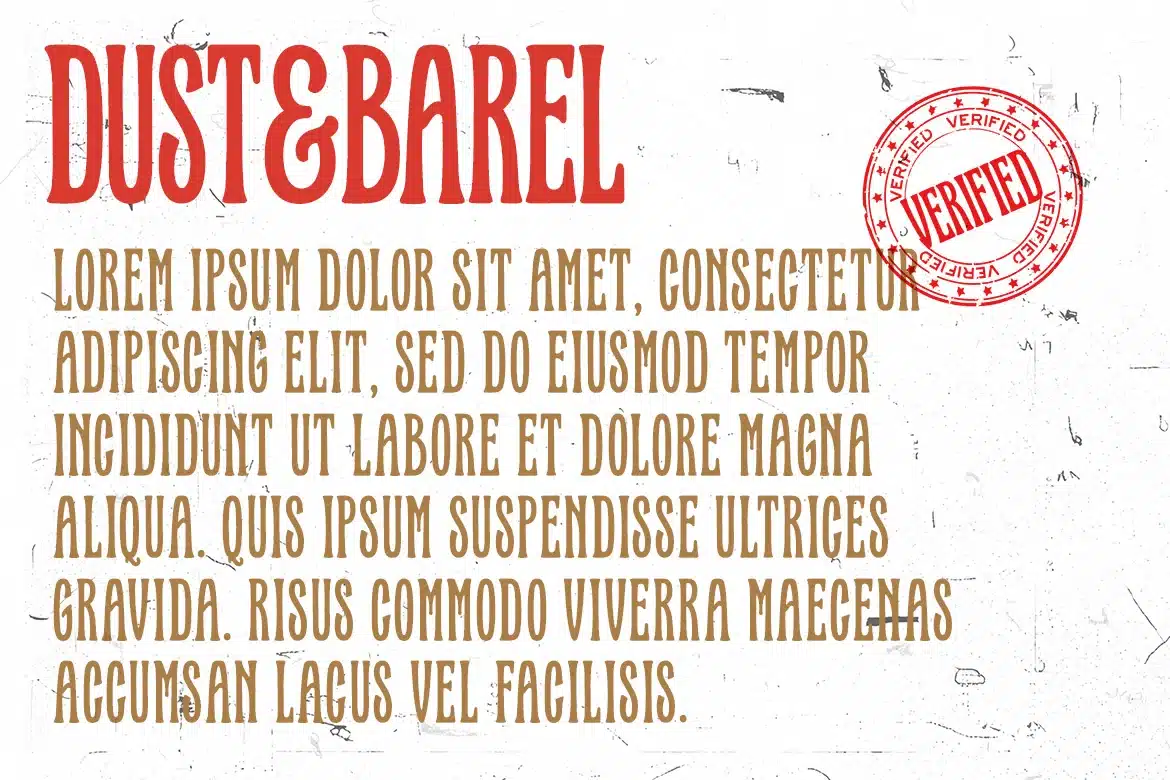
Dust & Barrel – Vintage Serif Display Font
Dust & Barrel is a bold vintage display serif inspired by classic western posters, frontier signage, and old saloon typography. Featuring tall condensed proportions, rugged curves, and strong decorative serif details, this typeface delivers a powerful retro statement with authentic cowboy-era personality.
Best Used For:
- Western Branding
- Vintage Posters
- Logo Design
- Packaging Design
- Merchandise
- Book Covers
- Restaurant Branding
- Event Promotions